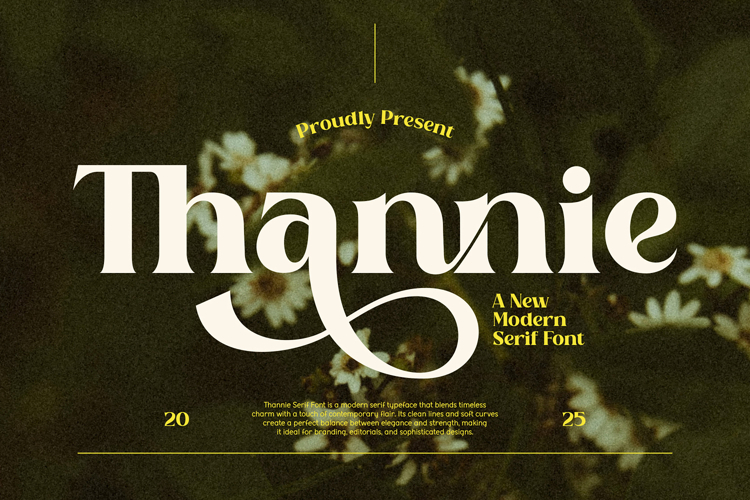
Thannie is A Modern Display Serif
Thannie is a strong and bold serif font. It is curved, rounded, and has a unique retro and vintage style, perfect for branding. Use this display font to add that special retro vintage touch to any design idea!. Equipped with all complete characters ranging from uppercase letters, lowercase letters, numbers, punctuation marks, and multi-lingual support, this font is ready to be used in any project. Very suitable for logotype, Stickers, Packaging design, Cricut Project, headlines, brand identity, t-shirt or apparel industry, posters, magazines, books, YouTube, Instagram, websites, or any of your creative design projects.